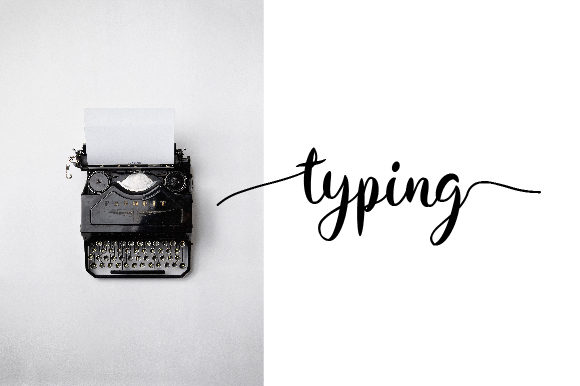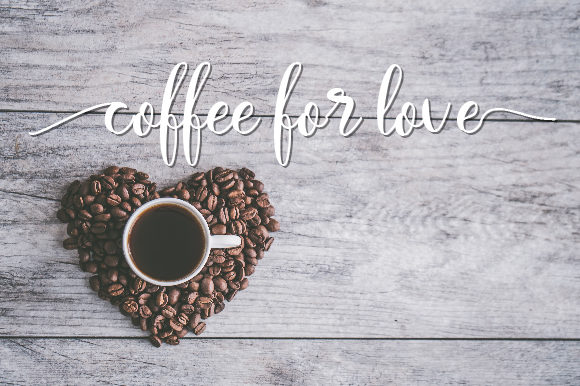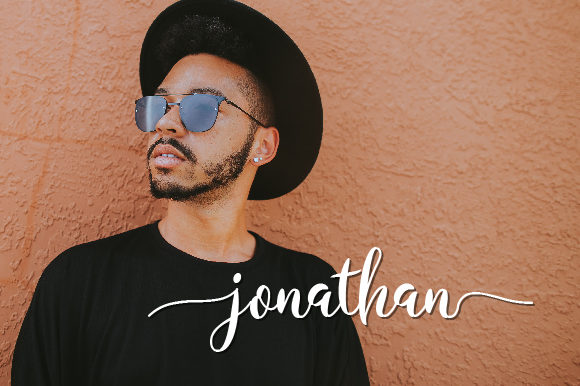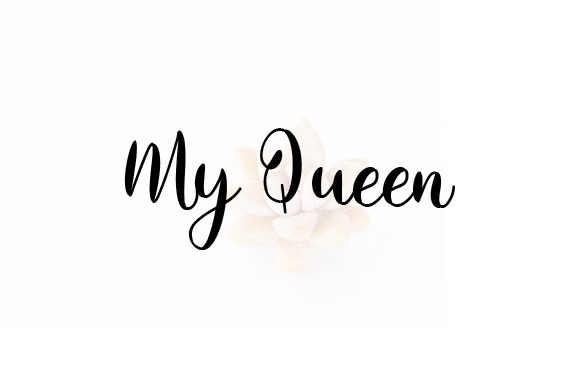
About Whitesecret Font
Introducing “Whitesecret,” an exquisite handwritten font that adds a touch of elegance and sophistication to your creative projects. With its unique and delicate style, Whitesecret allows you to bring your ideas to life and create truly spectacular designs.
Whitesecret is designed with meticulous attention to detail, capturing the beauty of handcrafted lettering. Each letter is carefully crafted to maintain a perfect balance between legibility and artistic flair. The result is a font that exudes elegance and refinement, making it a perfect choice for a wide range of design applications.
Whether you’re working on branding, packaging, invitations, greeting cards, or any other design project, Whitesecret will add a touch of sophistication and charm. Its graceful curves and flowing lines create a harmonious rhythm that draws attention and captivates the viewer.
With its realistic and natural appearance, Whitesecret brings a sense of authenticity and warmth to your designs. It emulates the look and feel of hand-drawn lettering, giving your projects a personal touch. This makes it a great choice for creating designs that require a human connection and a sense of intimacy.
Whitesecret’s versatility shines through as it seamlessly adapts to various design styles. Whether you’re aiming for a modern and minimalist look, a romantic and whimsical theme, or a timeless and classic aesthetic, Whitesecret delivers every time. It can be used as a headline font to make a bold statement or as a complementary font to add a touch of elegance to your compositions.
Whitesecret is a font that truly stands out, elevating your ideas and designs to new levels. Its exquisite style, attention to detail, and versatility make it a valuable asset in your design toolkit. Whether you’re designing for print or digital media, Whitesecret will bring a touch of sophistication and beauty to your projects.
In summary, Whitesecret is an exquisite handwritten font that adds elegance and refinement to your designs. With its realistic and natural appearance, versatility, and ease of use, Whitesecret is perfect for creating realistic and spectacular designs. Unleash your creativity with Whitesecret and let it elevate your projects to new heights.